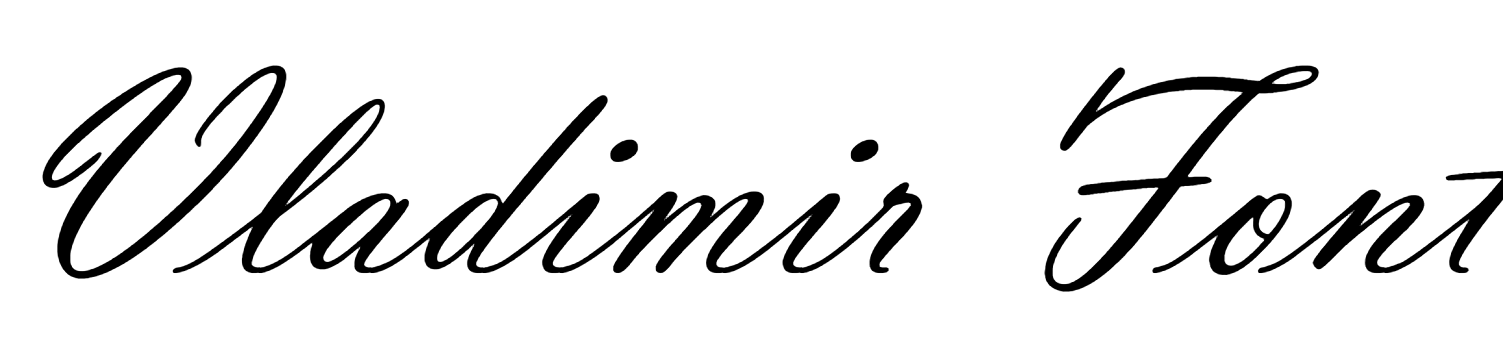
Vladimir Script
Vladimir Script is a handwritten font (1995). It looks like someone actually wrote it by hand: relaxed, friendly and a little imperfect in a good way. It's a free download, and you can try it with your own text in the preview above first.
What You Can Type With Vladimir Script
You get every letter from A to Z in both cases and all the numbers from 0 to 9, which means Vladimir Script can handle full sentences, dates and prices. Common punctuation such as &, !, ? and @ is included as well. It also has the accented letters you need for Spanish, French, German, Portuguese and Italian.
Where Vladimir Script Works Best
Think of Vladimir Script for greeting cards, journal pages and friendly social posts. The file has no kerning data, so in logos and big titles check pairs like AV, To and Wa and tighten the spacing by hand. Set it a bit larger than you would a normal text font. Handwriting styles lose their charm once they get too small to read comfortably.
Does Vladimir Script support accented letters?
Yes. Vladimir Script includes the accented letters needed for Spanish, French, German, Portuguese and Italian, so it works for more than just English.